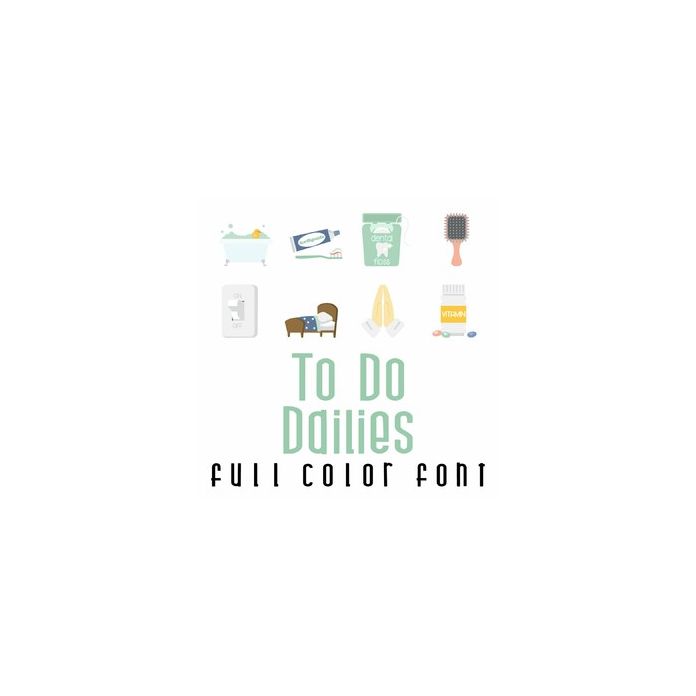
This adorable full color doodlebat font features 26 daily chores. Perfect for creating chore charts, cards, crafts, gifts, decor, scrap book pages, planner stickers and more!